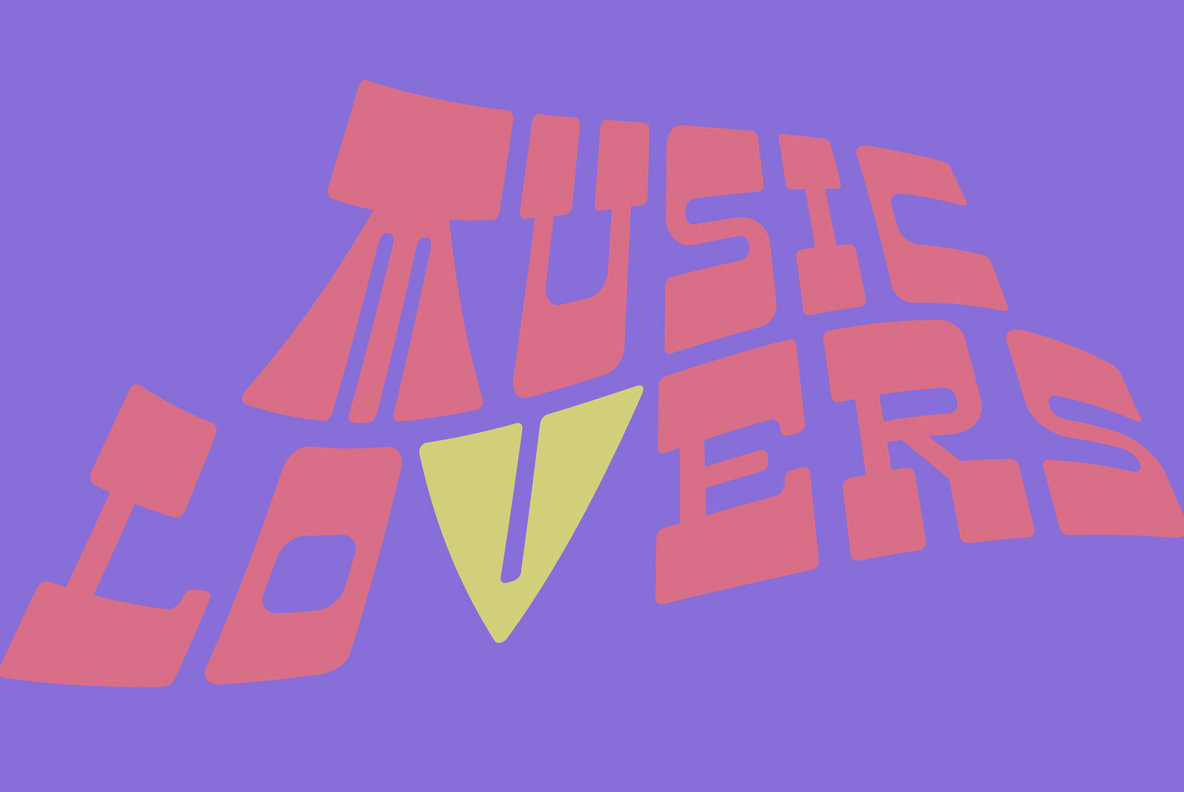
Moon Star Soul Font
Moon Star Soul Font is perfect for spiritual wellness branding, celestial meditation products, mystical healing services, lunar cycle calendars, cosmic jewelry packaging, astrology consultation materials, soul guidance communications, and ethereal advertising campaigns. This transcendent typeface works beautifully in both digital applications and print media where cosmic spirituality and celestial connection are essential design elements.
What makes Moon Star Soul Font so exciting is its mystical interpretation of celestial harmony and spiritual awakening through luminous letterforms that seem blessed with the same divine energy and cosmic wisdom that connects earthly souls to universal consciousness. The font features ethereal characters with celestial proportions, mystical curves, and soul-inspired details that create an immediate sense of spiritual connection, cosmic awareness, and the profound peace found in aligning with lunar rhythms and stellar guidance. Its transcendent personality and celestial heritage make it ideal for spiritual brands seeking to communicate cosmic wisdom while appealing to souls who seek deeper meaning through celestial connection and spiritual awakening.
The Moon Star Soul Font family includes multiple weight variations with different spiritual intensities, along with celestial alternates and mystical ornamental elements. Each style maintains the typeface's ethereal character while offering comprehensive character sets including cosmic numerals, spiritual punctuation marks, and special symbols designed to enhance mystical communications and celestial branding efforts across various transcendent contexts.
This extraordinary typeface represents the perfect fusion of cosmic spirituality and contemporary design functionality for wellness and metaphysical industries. Whether you're developing spiritual healing center identities, creating astrology service materials, or designing cosmic wellness campaigns, Moon Star Soul Font Free Download provides the celestial authenticity and versatility needed to connect with spiritually awakened audiences. The font's mystical appeal makes it particularly effective for spiritual healers, astrology practitioners, meditation centers, and businesses celebrating the profound connection between earthly souls and cosmic consciousness.
The meticulously crafted celestial details and optimized spiritual performance in Moon Star Soul Font ensure both mystical authenticity and clear communication across all spiritual applications. Its ethereal presence makes it perfect for cosmic branding, spiritual marketing materials, and transcendent communications where its full celestial character can create lasting soul connections with audiences seeking cosmic wisdom, spiritual guidance, and the profound peace that comes from aligning their earthly journey with lunar cycles and stellar consciousness.